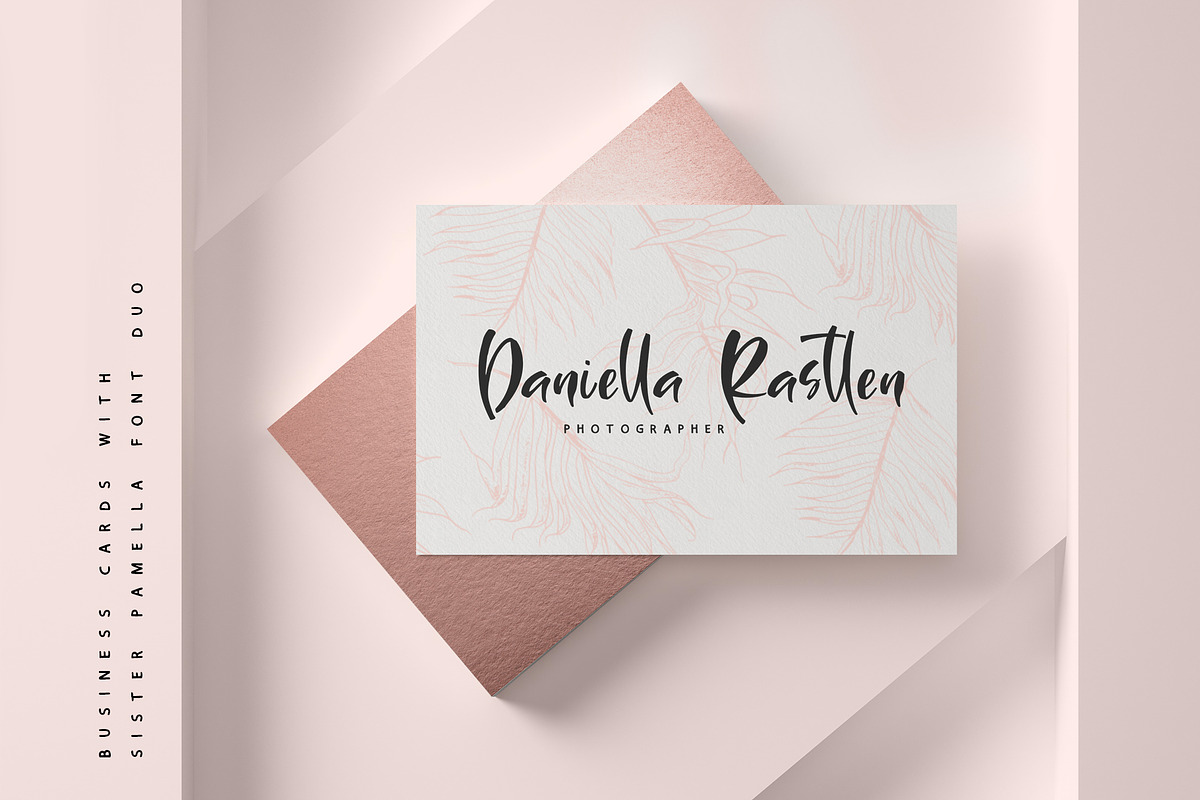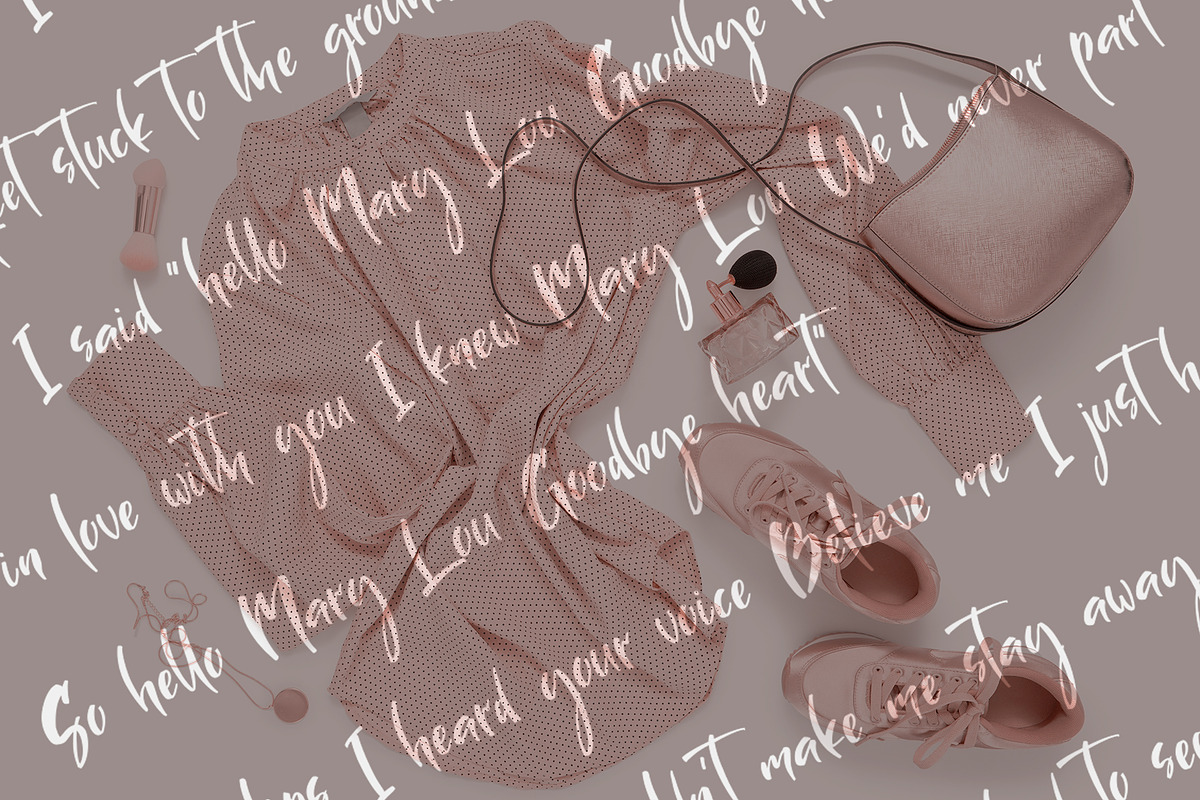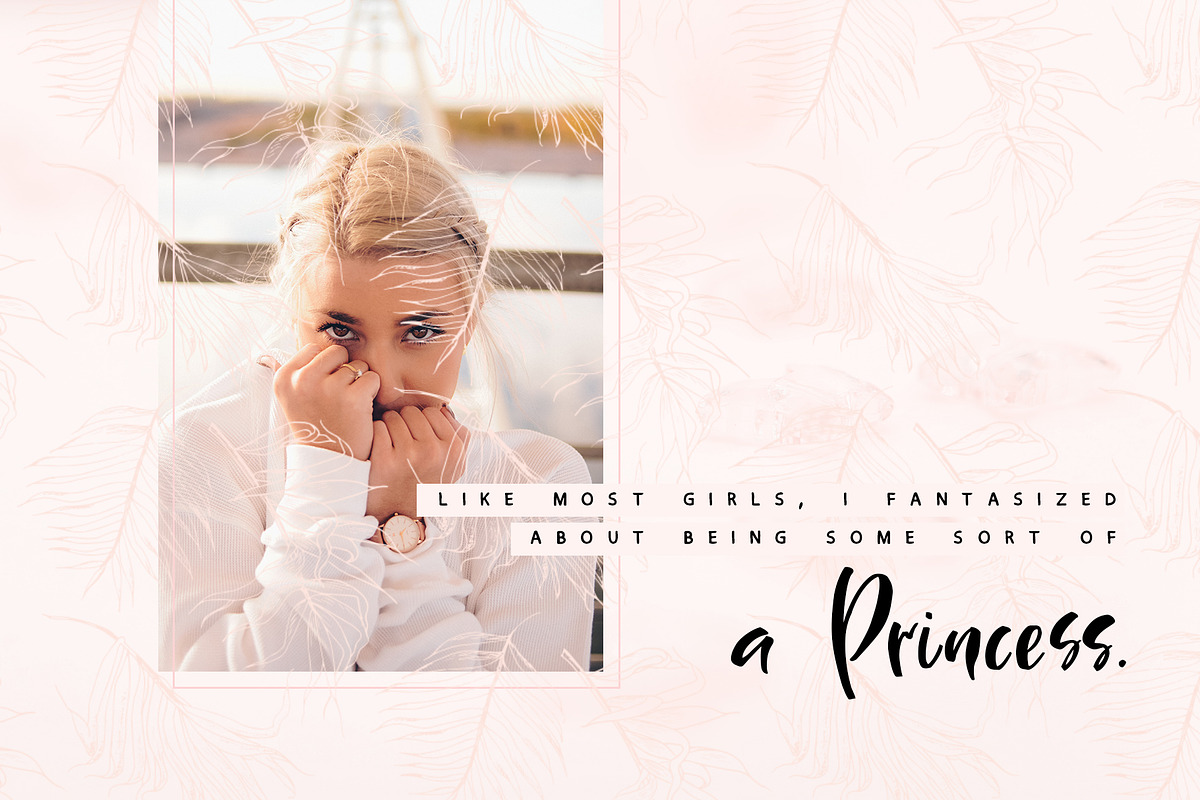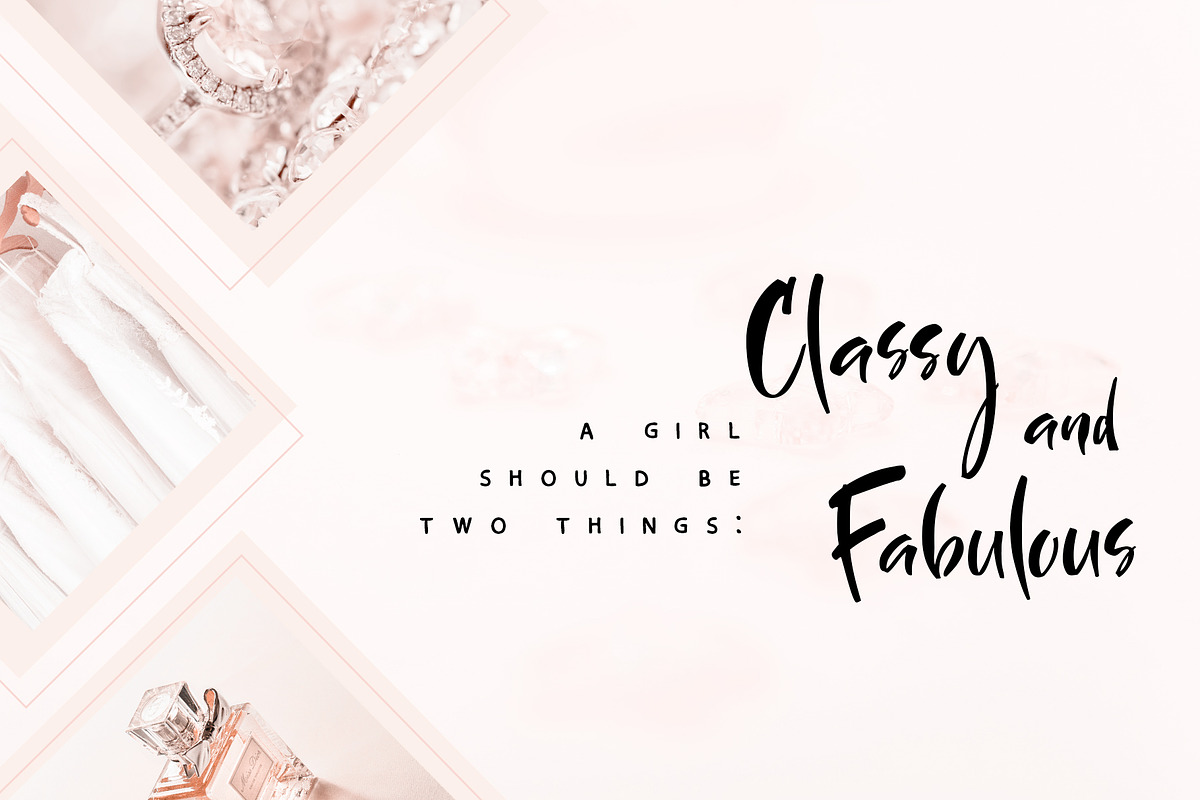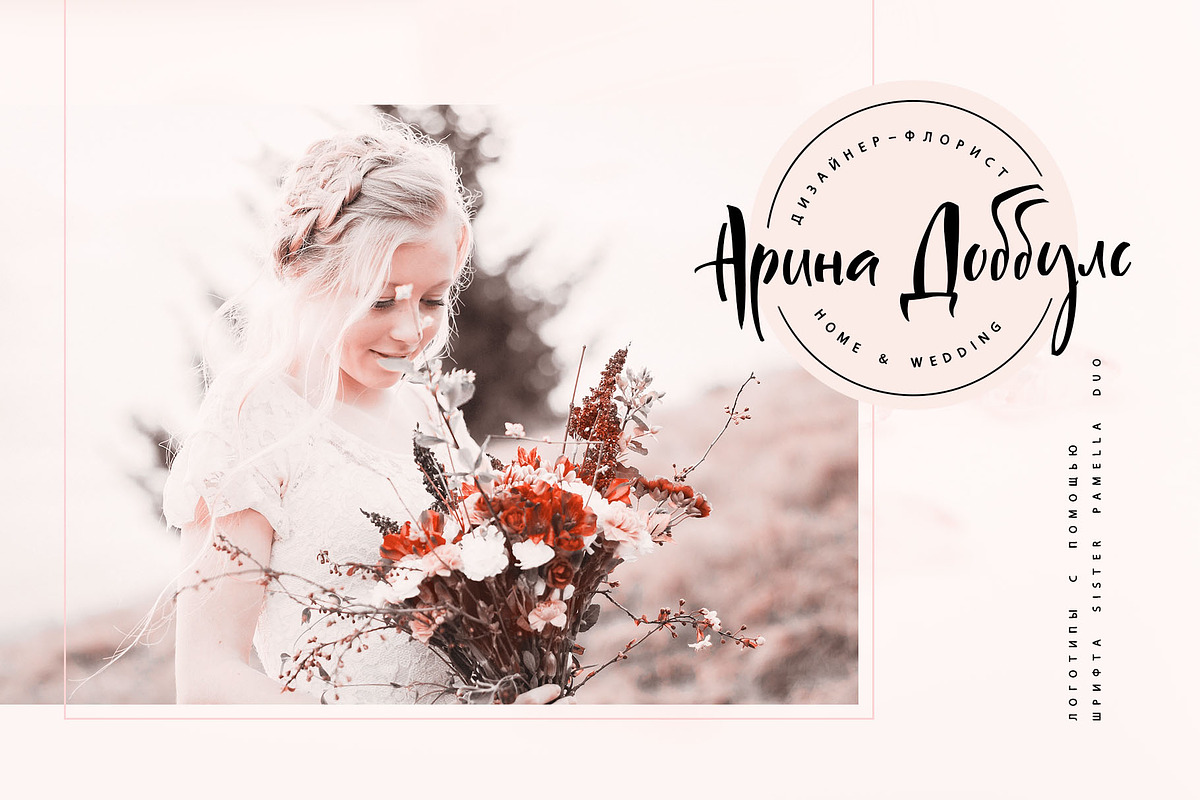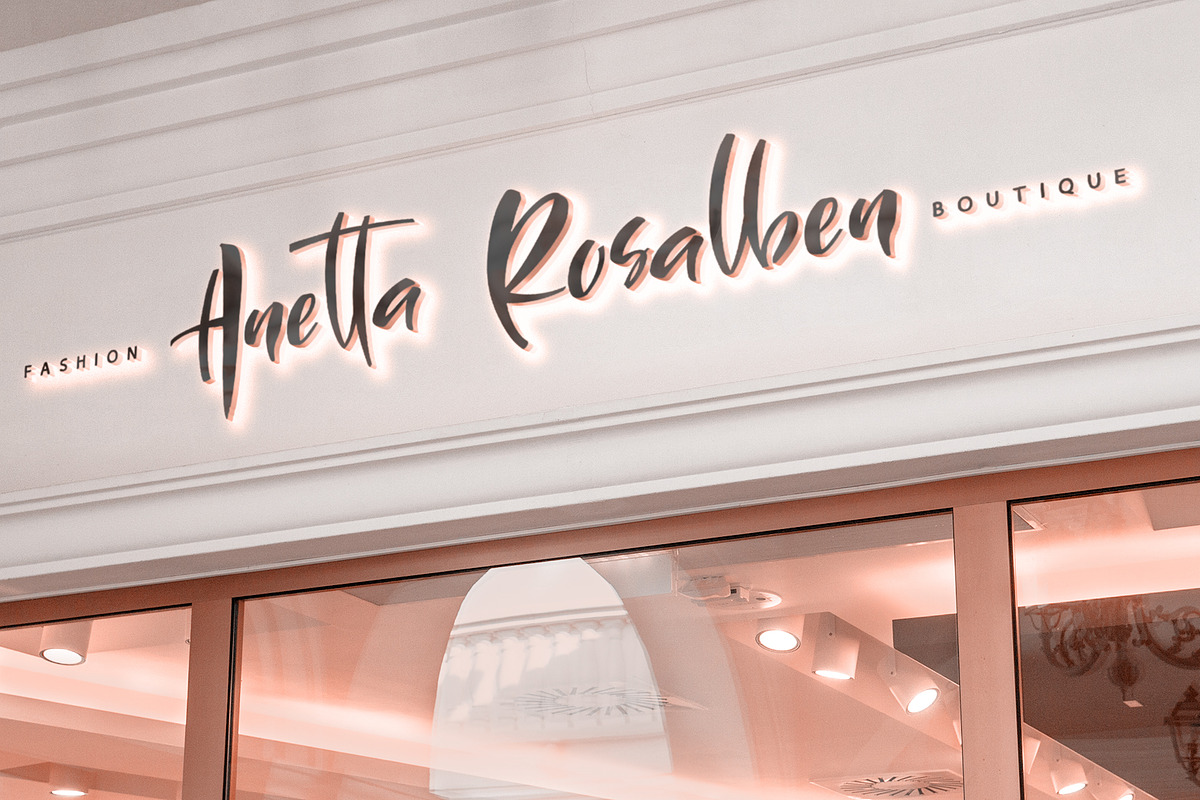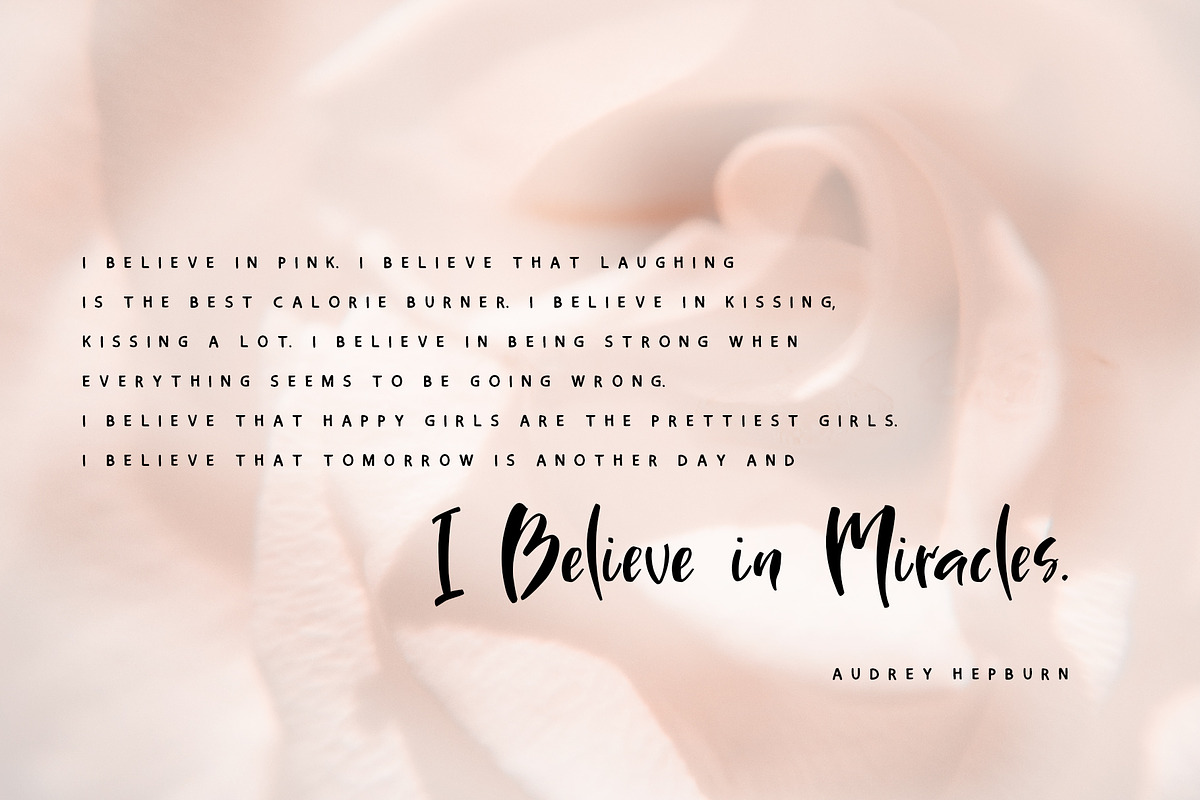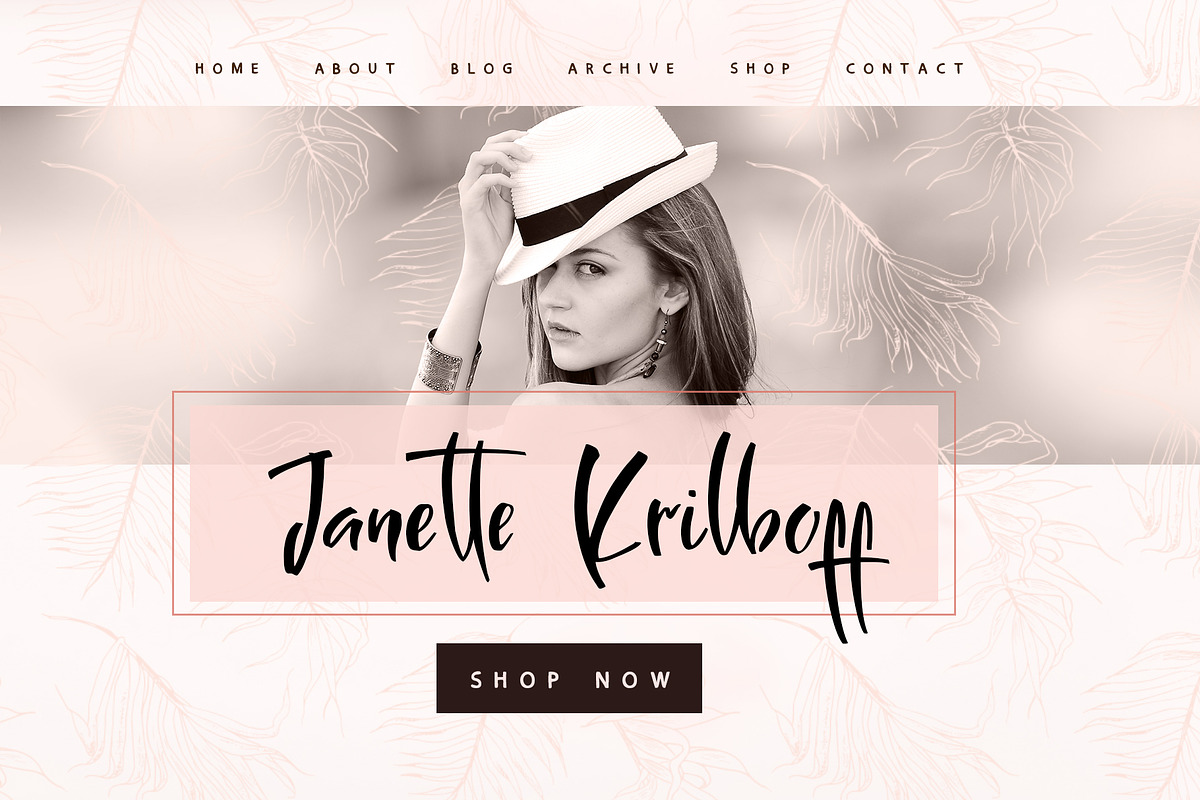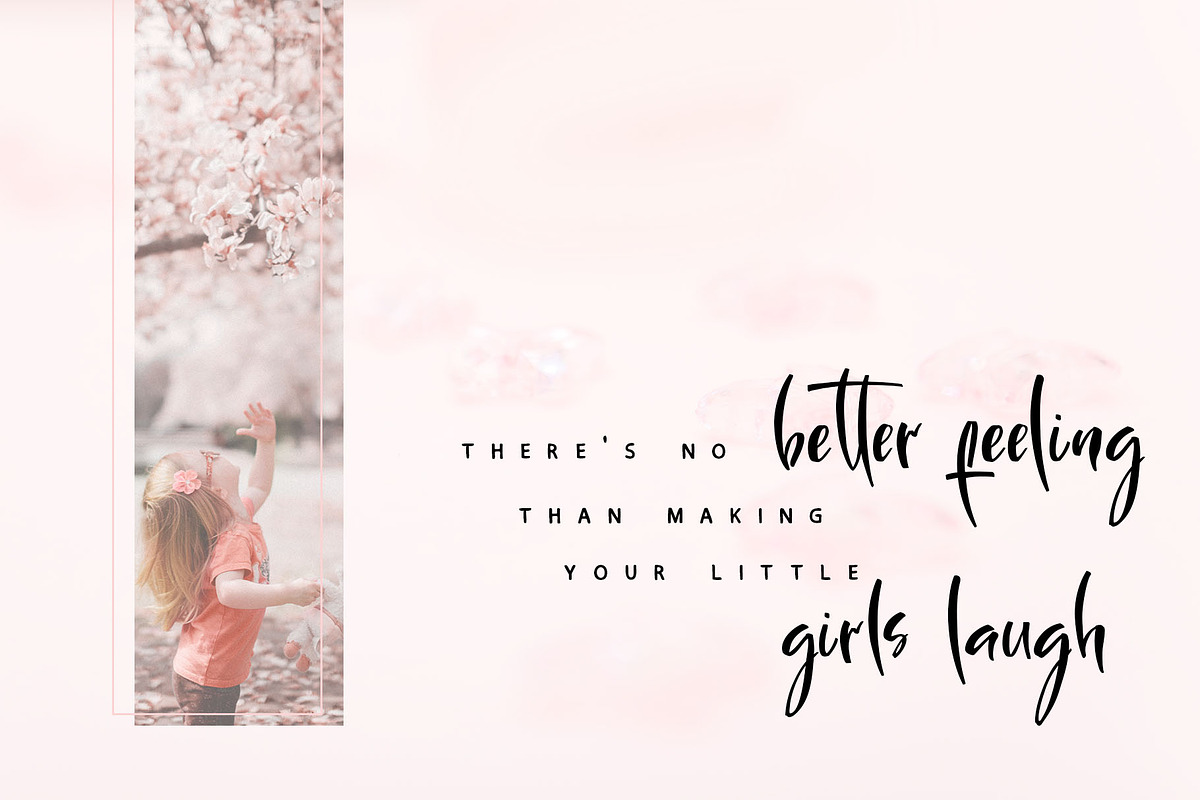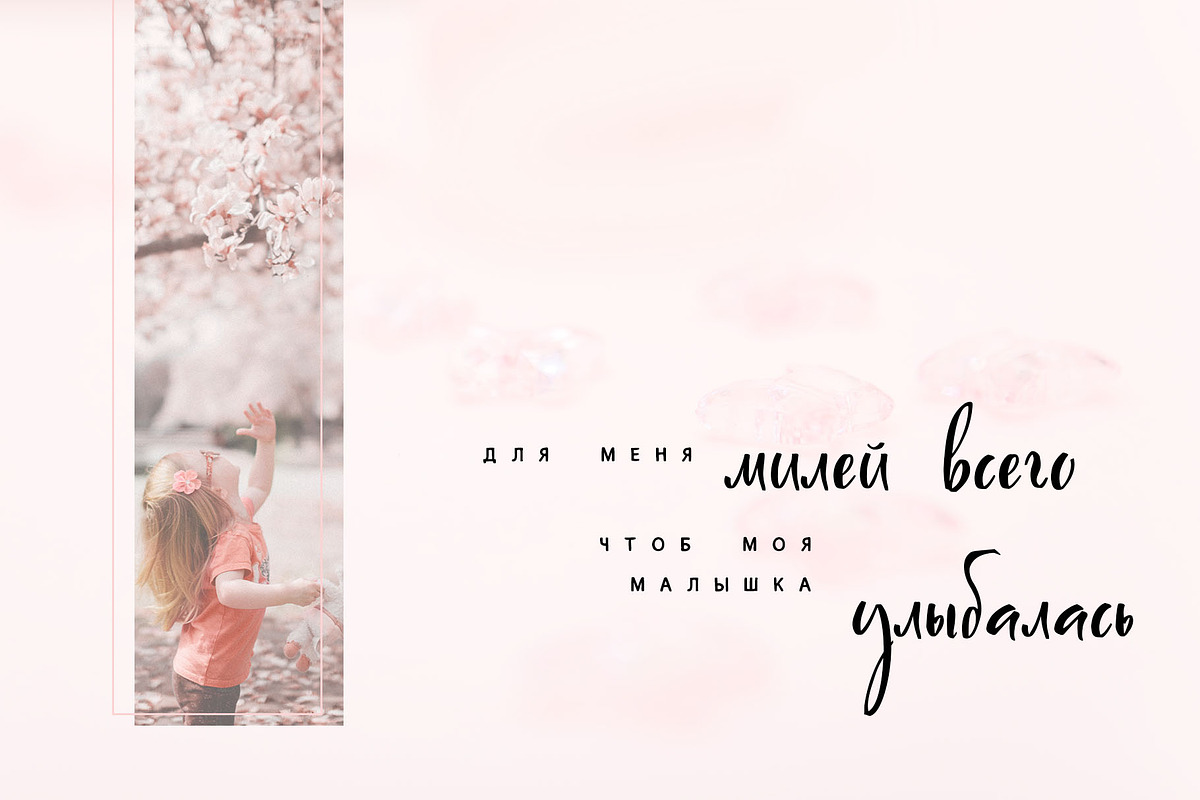
Sister Pamella Font Duo Cyrillic
Sister Pamella font duo Cyrillic is a pair of script and sans serif fonts, which perfectly complement one another.
With a handwritten script font and a modern sans serif Sister Pamella font duo Cyrillic will be perfect for use in all your design projects be it logos, signatures, labels, packaging design, blog headlines. Also, it will look great on mugs, cards, gorgeous typographic designs, wedding stationery and much more.
The Cyrillic part of the font contains the uppercase letters and lowercase letters and 17 ligatures, giving a realistic hand-lettered style.
Sister Pamella script Cyrillic includes a full set of uppercase 2 sets of lowercase letters, numerals, a large range of punctuation and 38 ligatures, giving a realistic hand-lettered style.
Sister Pamella sans serif containing uppercase only characters, numerals and a large range of punctuation. Creates a perfect contrast with the Sister Pamella script font.
Multilingual Support for 31 languages:
Afrikaans, Albanian, Basque, Bosnian, Catalan, Danish, Dutch, English, Estonian, Faroese, Filipino, Finnish, French, Galician, Indonesian, Irish, Italian, Malay, Norwegian Bokmål, Portuguese, Slovenian, Spanish, Swahili, Swedish, Turkish, Welsh, Zulu.
And Cyrillic glyphs support for Russian, Belorussian, Bulgarian, and Ukrainian languages.